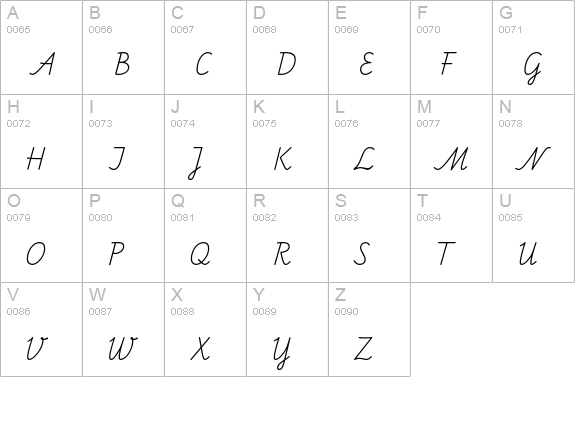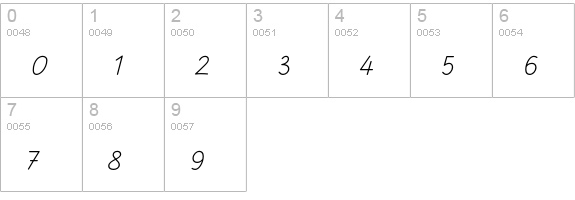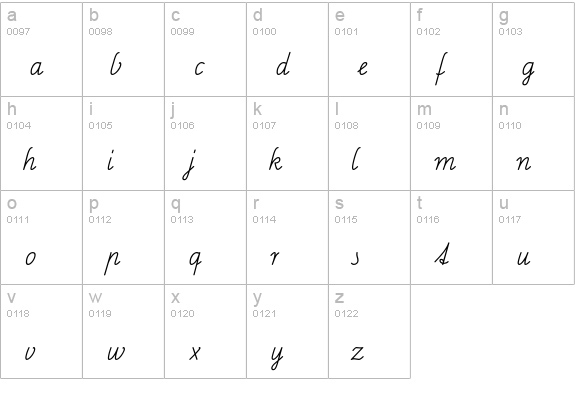
SchulschriftC Font Details
Introducing SchulschriftC, a beautifully designed font that combines elegance with functionality. This versatile typeface is perfect for various projects, ranging from educational materials to creative designs. Its clean and legible characters make it easy to read, while its unique flourishes add a touch of sophistication. One of the standout features of SchulschriftC is that it is available for free! Yes, you read that right – this fantastic font can be downloaded and used without any cost. Whether you're a student, teacher, or designer, you can now access this remarkable typeface without breaking the bank. SchulschriftC is the result of meticulous craftsmanship and attention to detail. Each letter has been carefully crafted to ensure consistency and readability, making it ideal for textbooks, worksheets, and presentations. Its seamless blend of classic and modern elements adds a contemporary twist to any project, making it a truly versatile font. But don't just take our word for it – head over to FontsMarket.com and see for yourself. SchulschriftC is waiting for you, ready to elevate your designs to new heights. With its generous availability and exceptional quality, this font is a must-have for anyone in need of a reliable and visually appealing typeface. So why wait? Download SchulschriftC today and unlock a world of creative possibilities. Whether you're a seasoned designer or a budding enthusiast, this font will surely become a valuable addition to your font collection. Embrace the beauty of SchulschriftC and watch your designs come to life with style and grace.